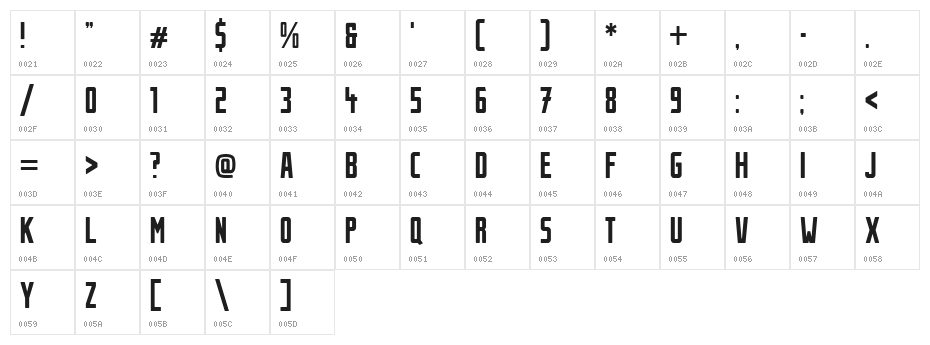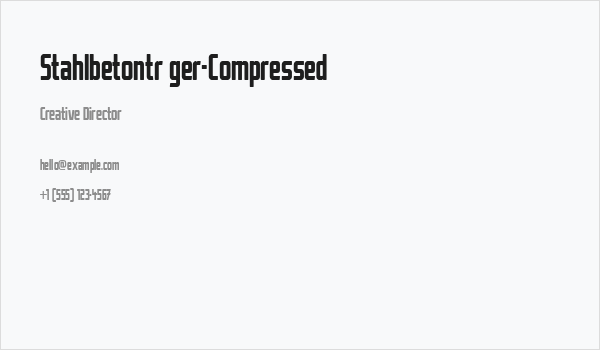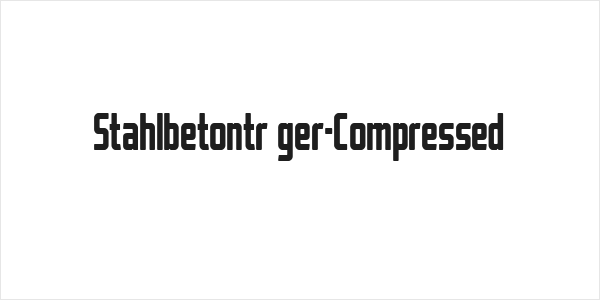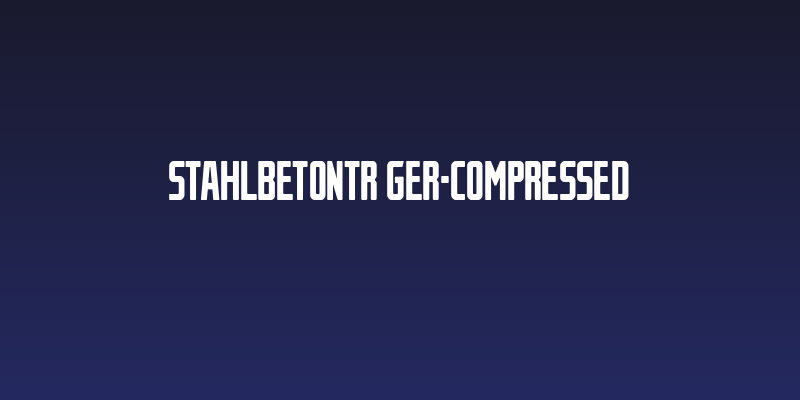
StahlbetontrŠger-Compressed Font
StahlbetontrŠger-Compressed Description
This font features a bold and condensed style with a modern, industrial feel. The uppercase letters are tall and narrow, giving a strong, impactful appearance. The lowercase letters maintain the condensed form, ensuring consistency across the typeface. Numbers and special characters are designed to match the robust and compact nature of the font. The overall design is clean and geometric, making it suitable for projects that require a strong visual presence.